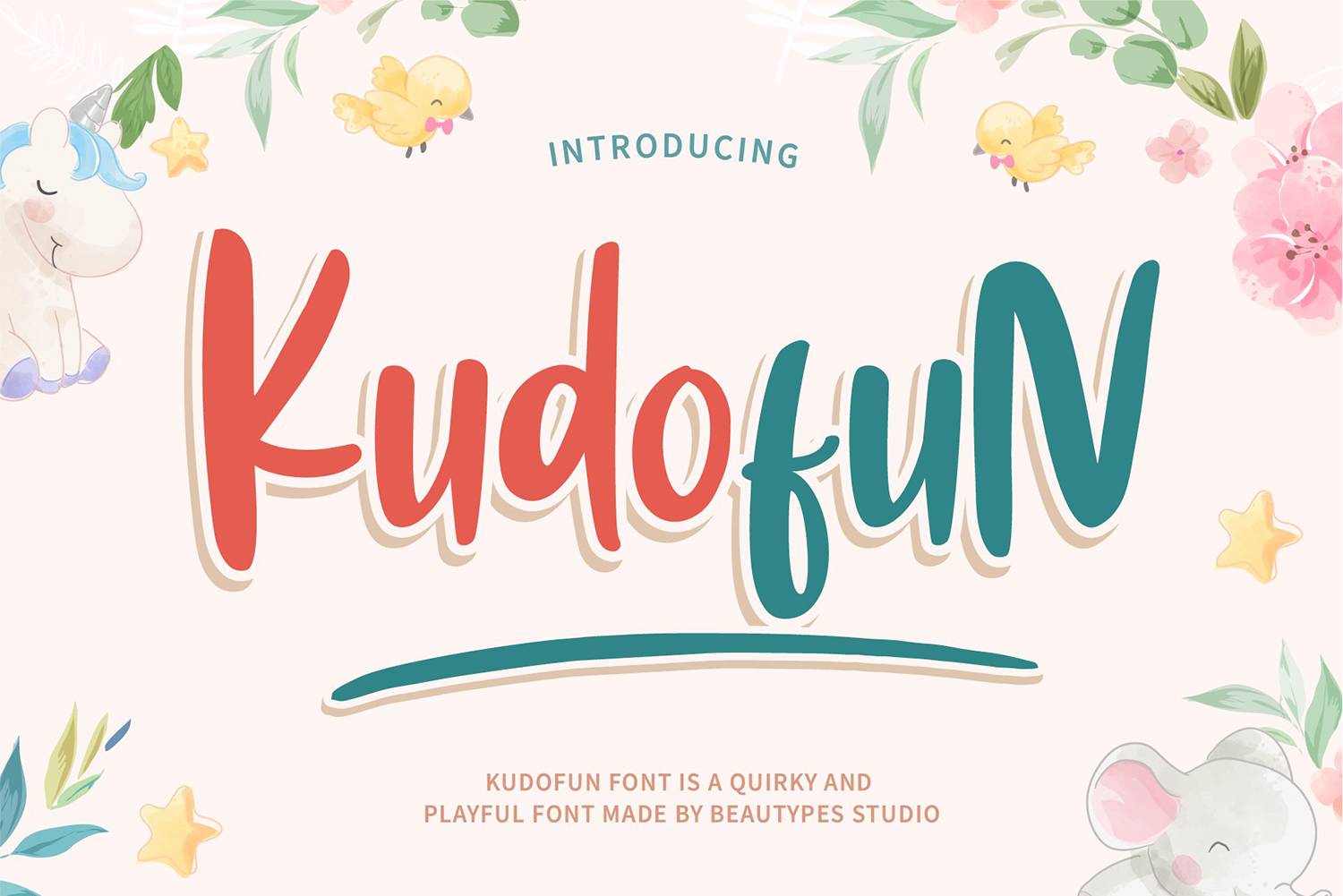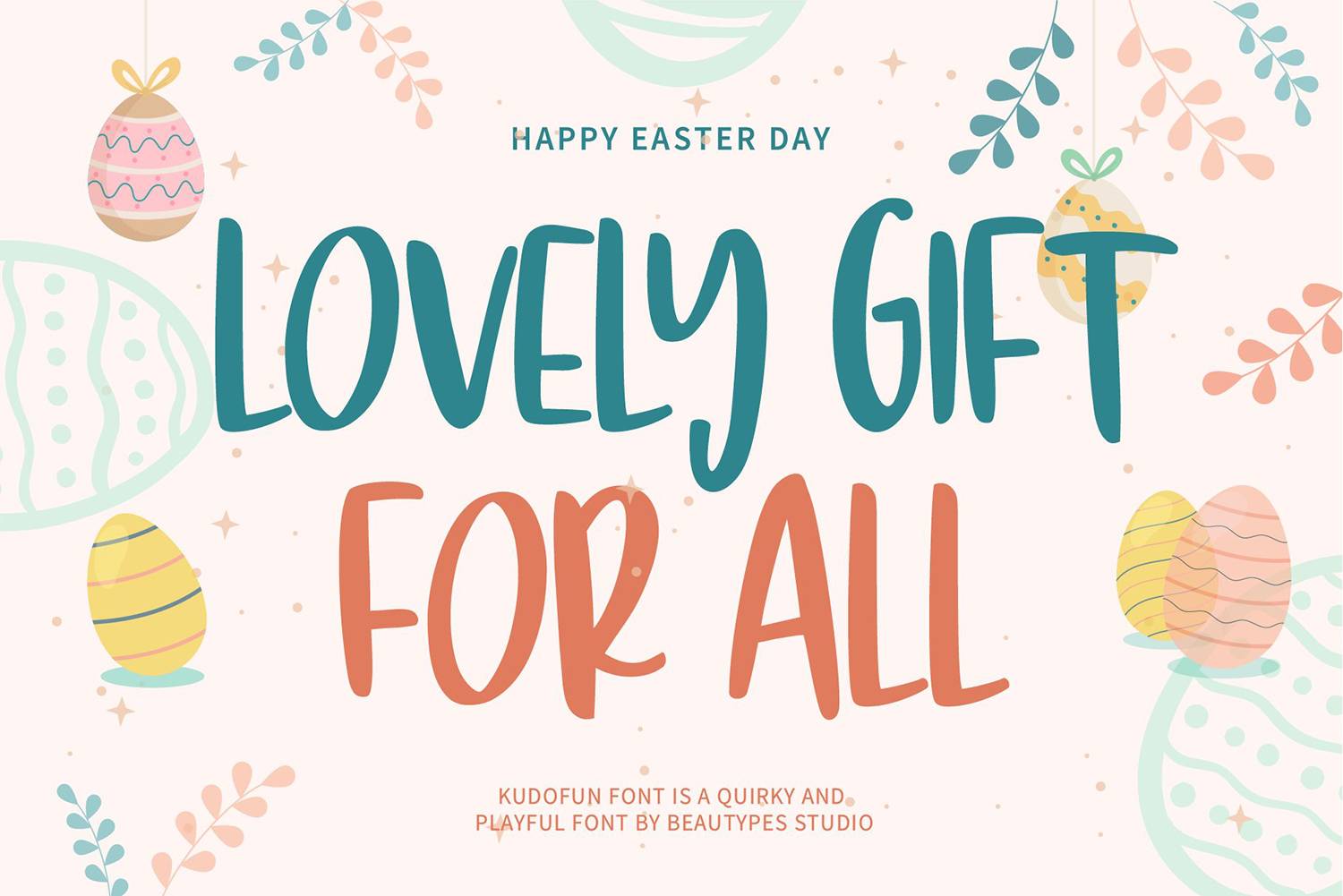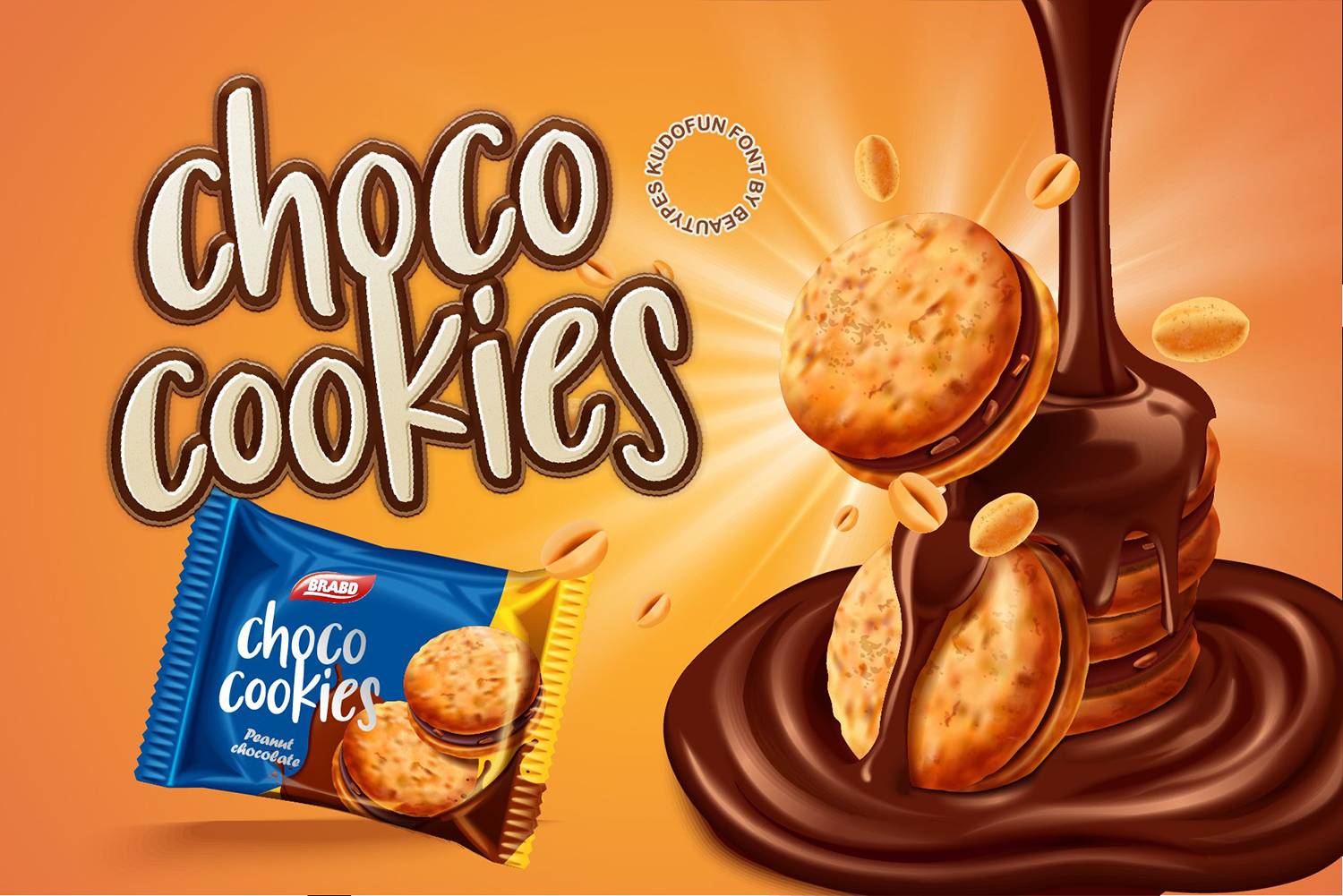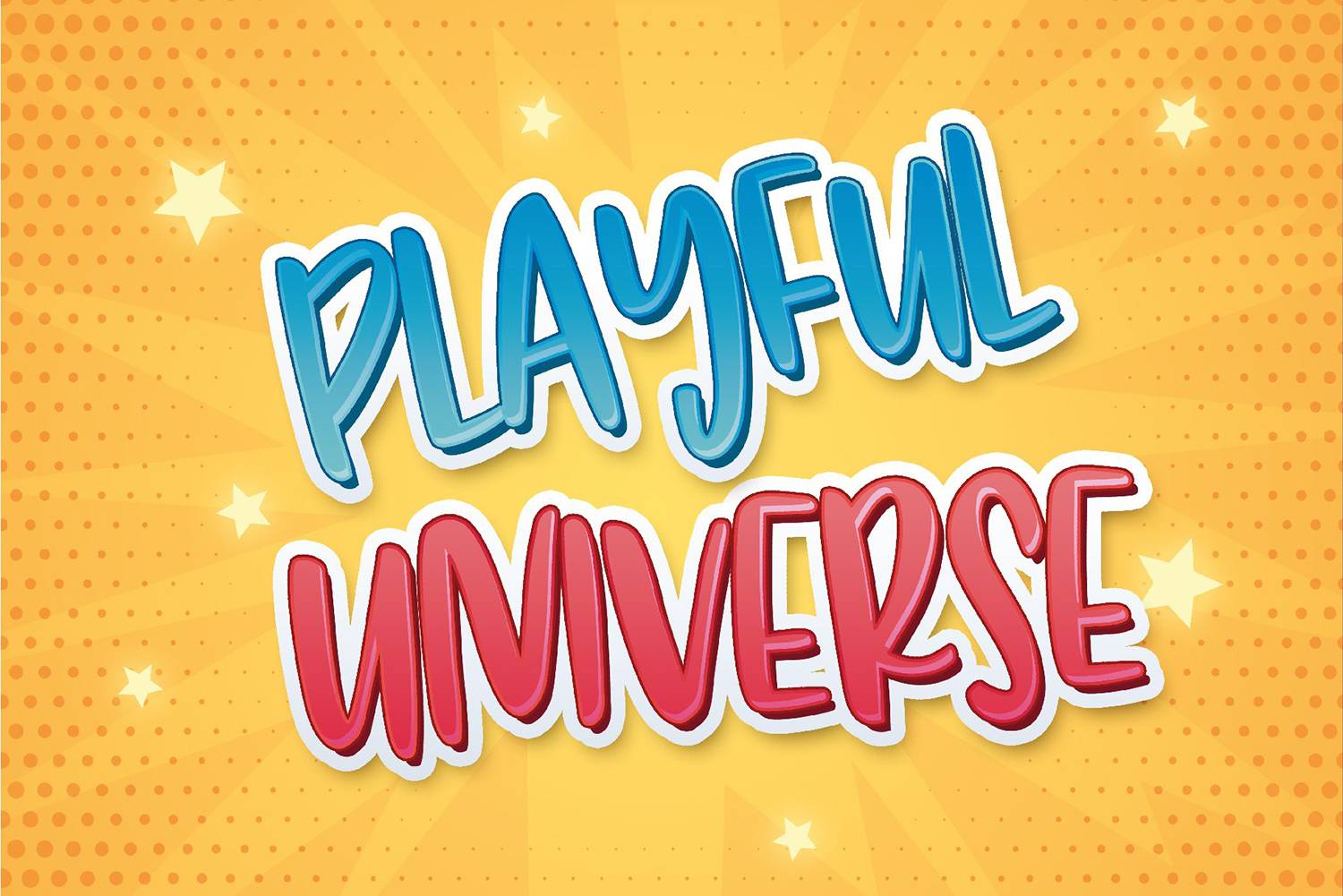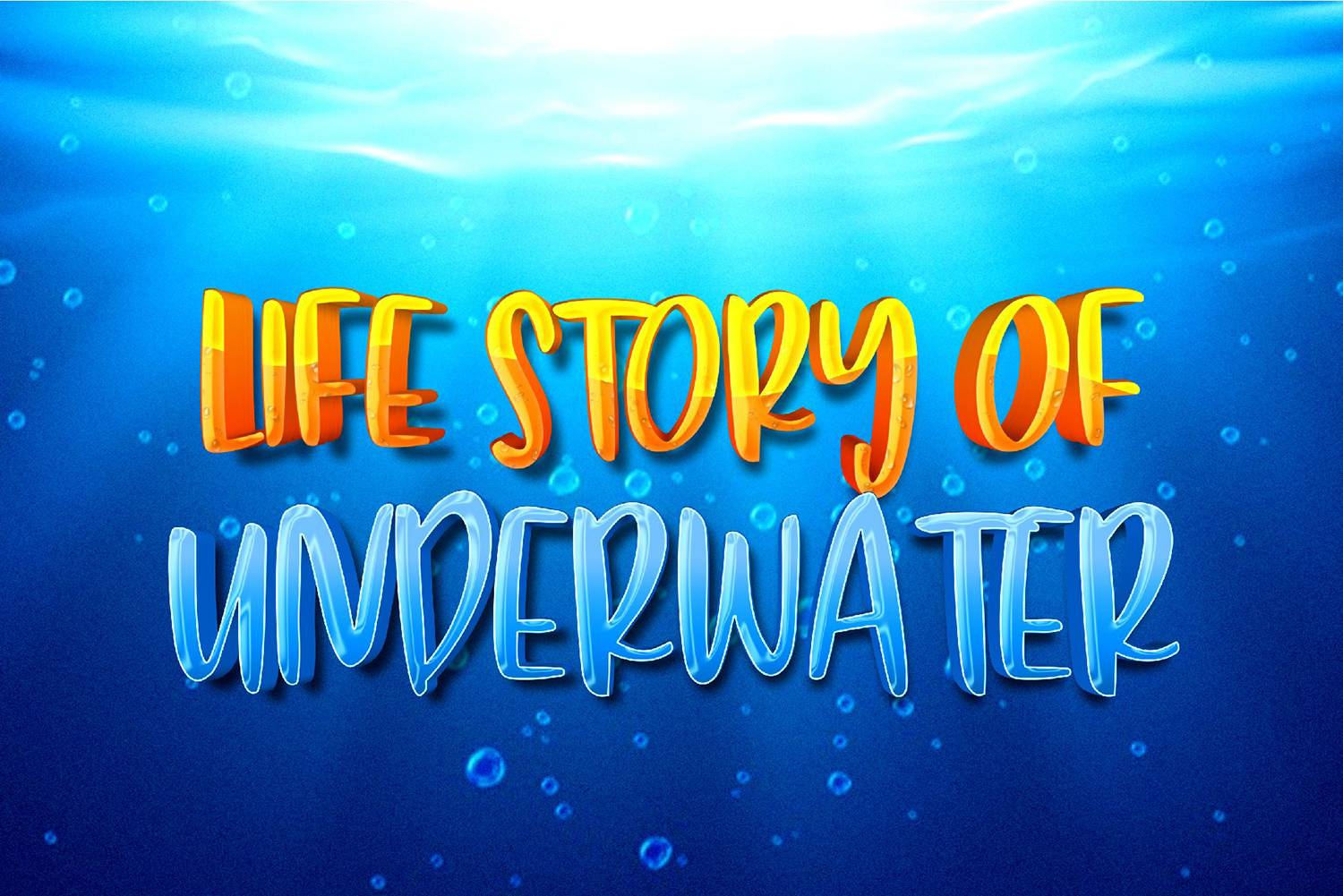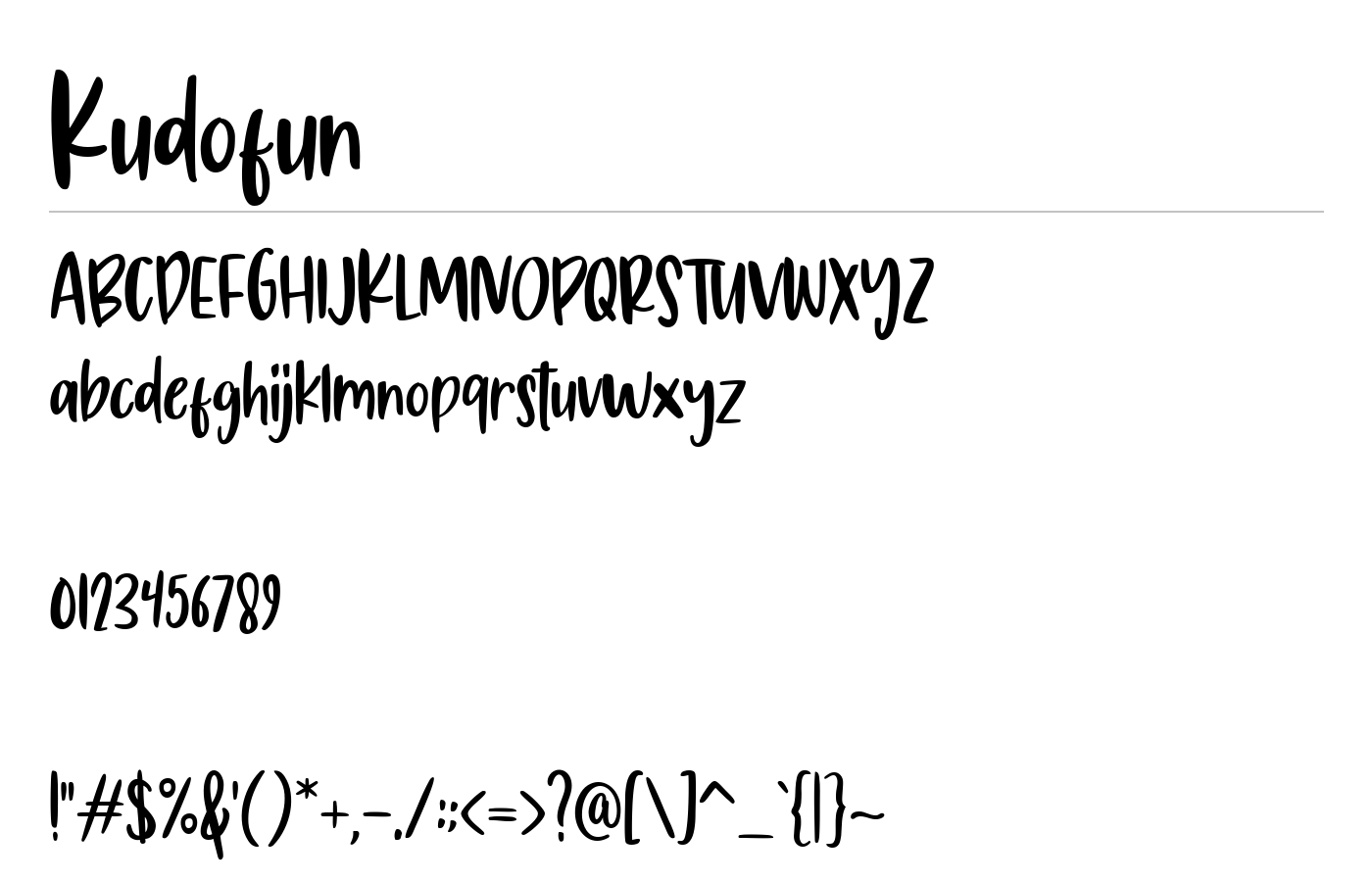
Kudofun is a playful and casual handwritten sans serif font with a lively, organic feel. Its tall, narrow letterforms with irregular strokes and a friendly vibe make it perfect for informal designs like invitations, children’s books, or creative branding. This font’s energetic style works well for adding a personal touch in headlines and display use where warmth and approachability are key.
Kudofun Font
About Kudofun Font
| Font family | Kudofun Font |
| Release date | 2021-02-23 |
| Designer | Yan Suari Shakti Pasaribu |